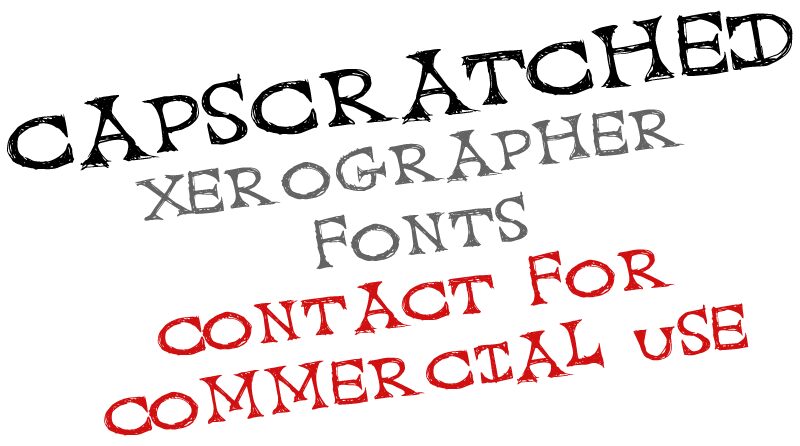
Cap Scratched from Xerographer Fonts is a free distressed handwritten font with wiry capitals and a deliberately battered surface. Deep scratches run through the strokes. Uneven contours, needle-sharp tips, and rough crossbars make the lettering resemble an old inscription that has been scraped into wood or metal.
That etched texture connects directly with distressed photography and hand-drawn artwork, making the font useful for horror posters, underground music packaging, and game title screens. On Halloween event graphics or dark fantasy merchandise, the recurring cuts and thorny edges can become part of the surrounding scratches, branches, or cracked decorative motifs.